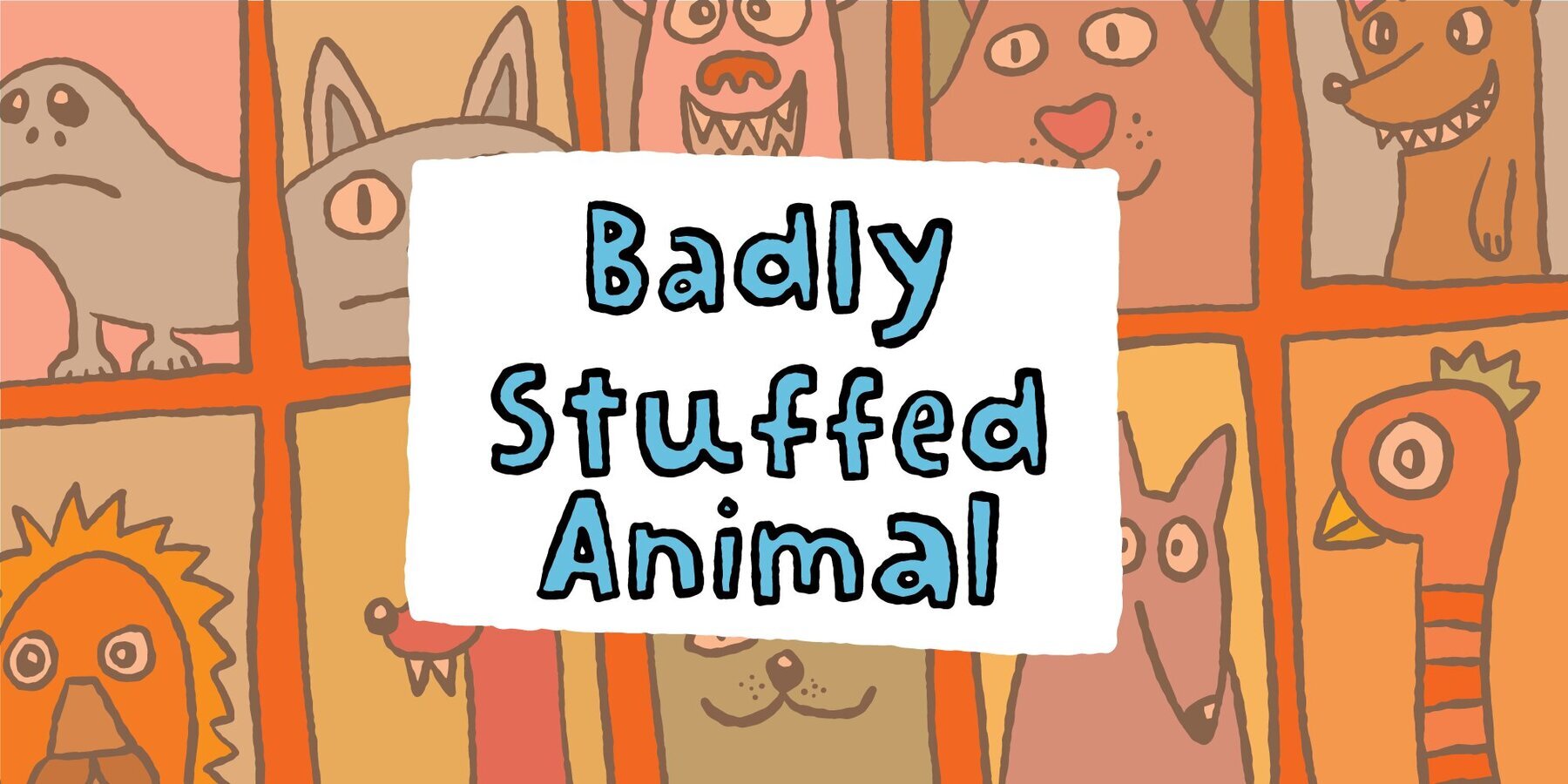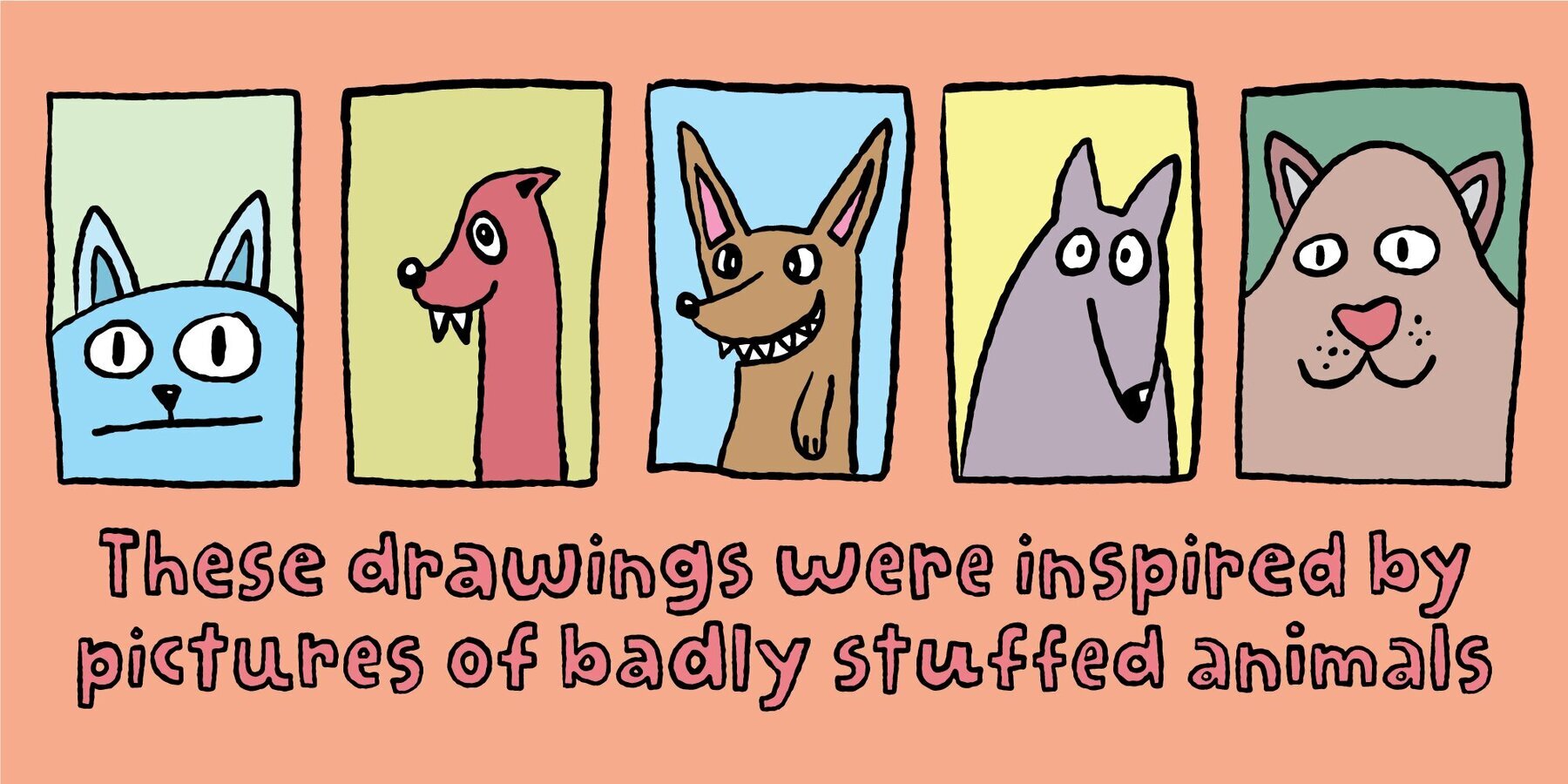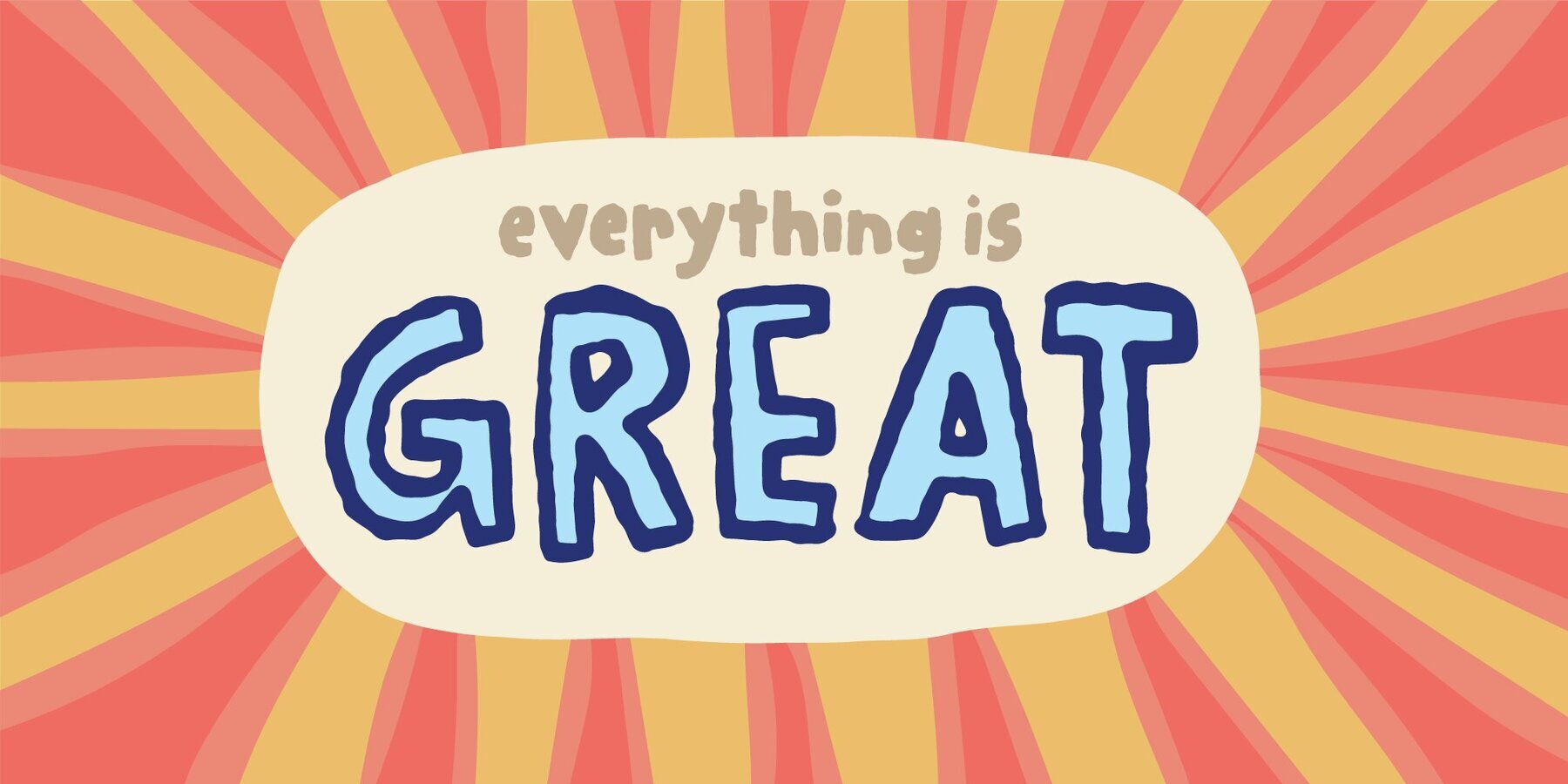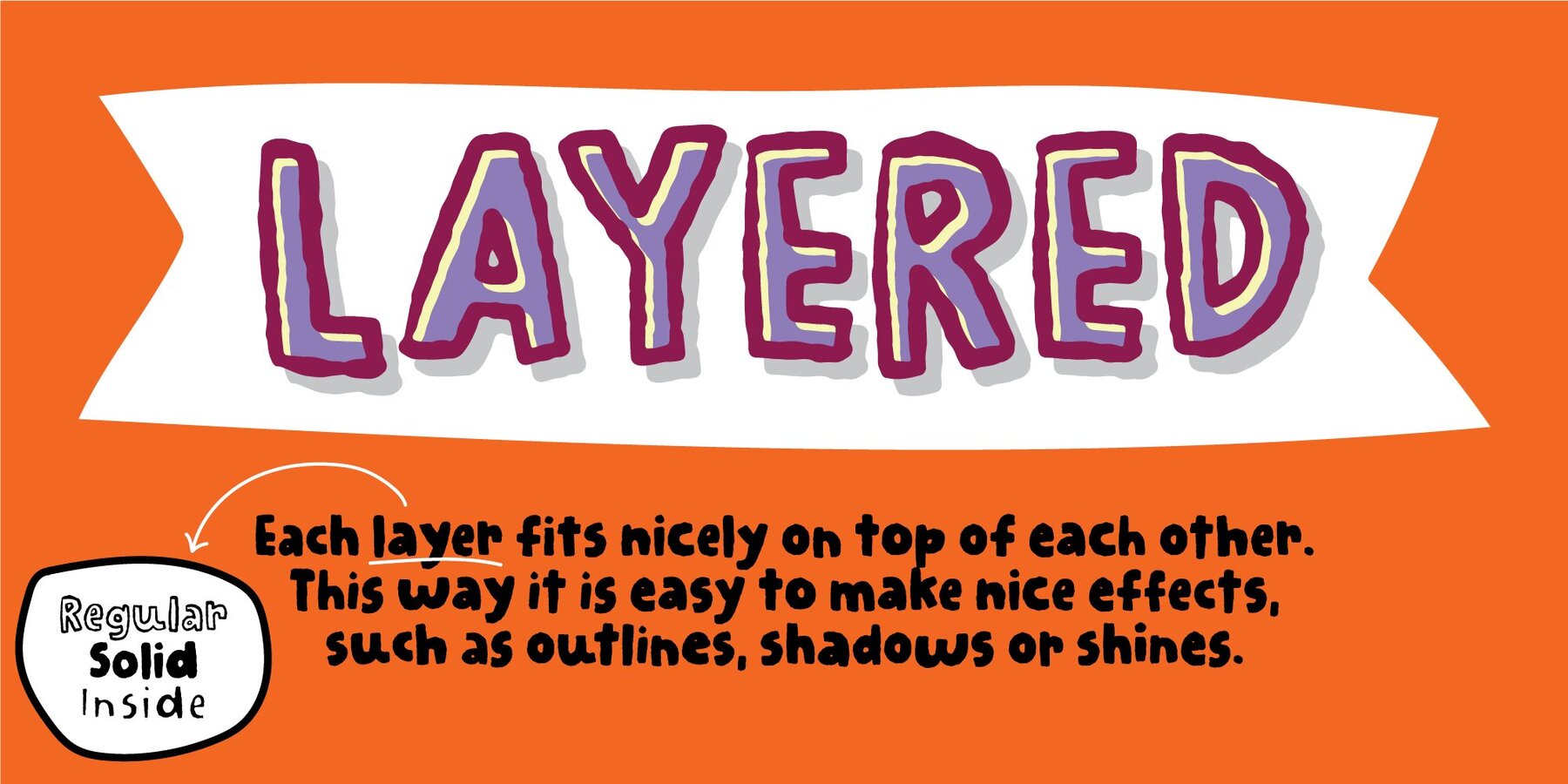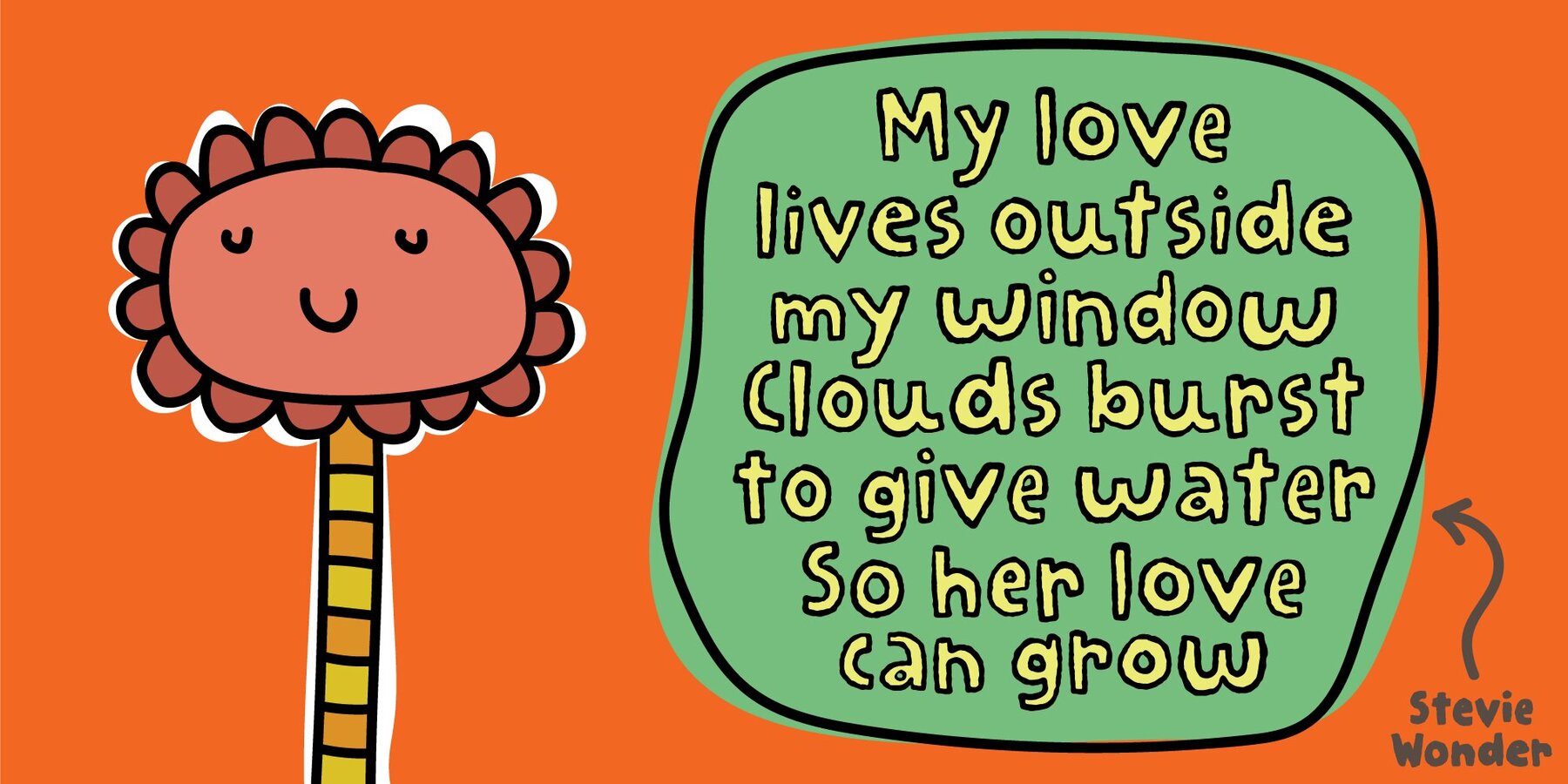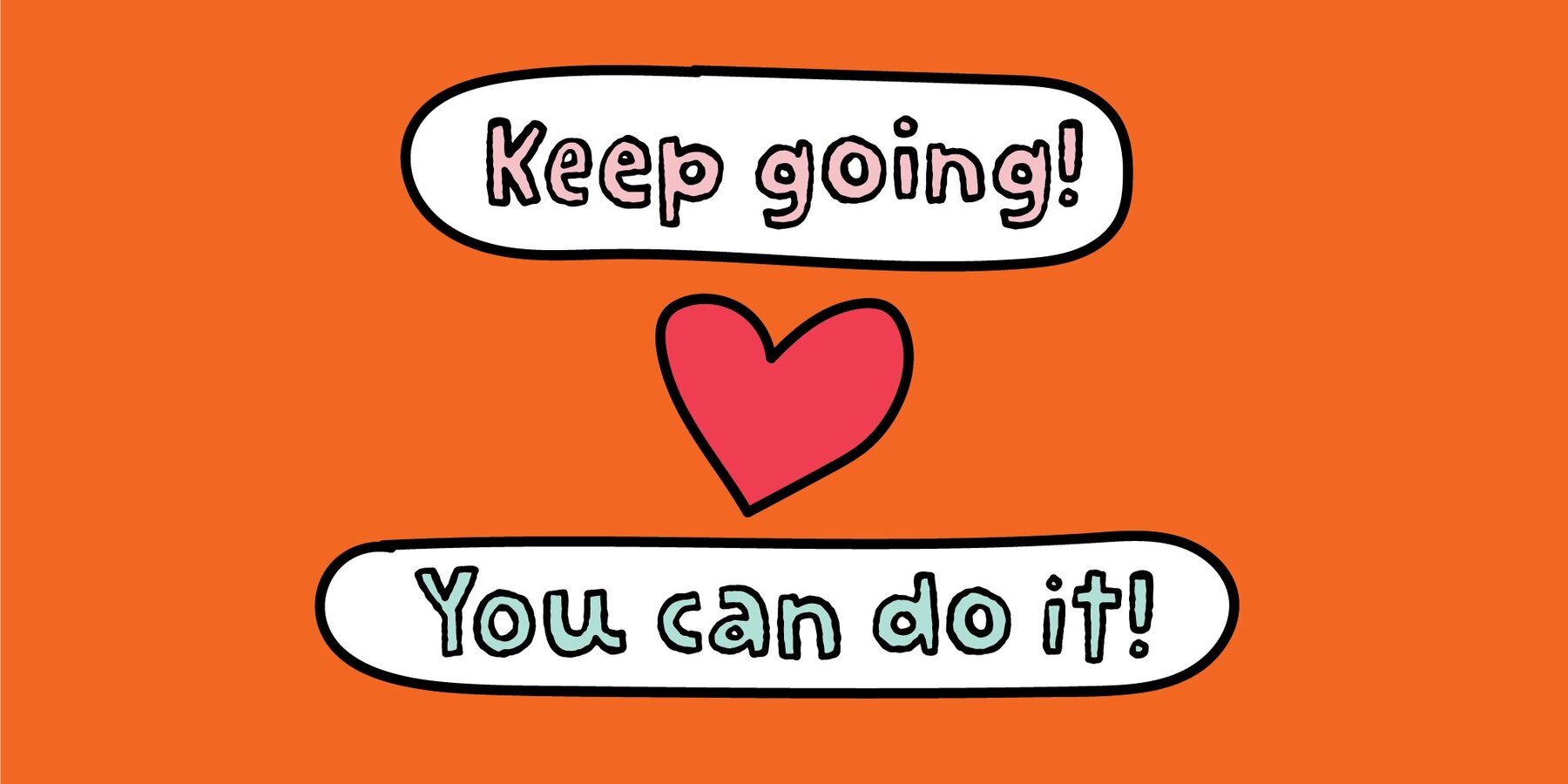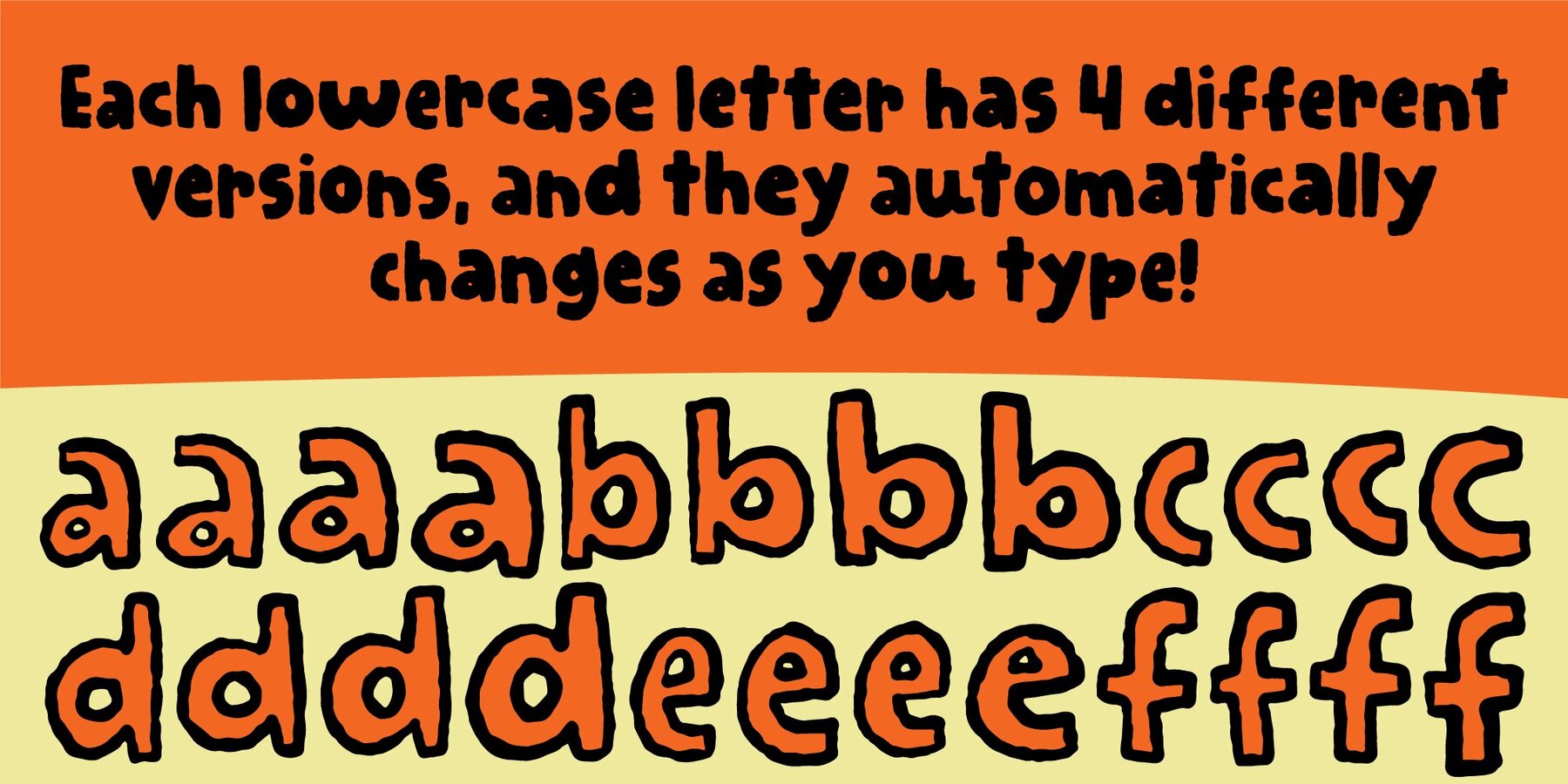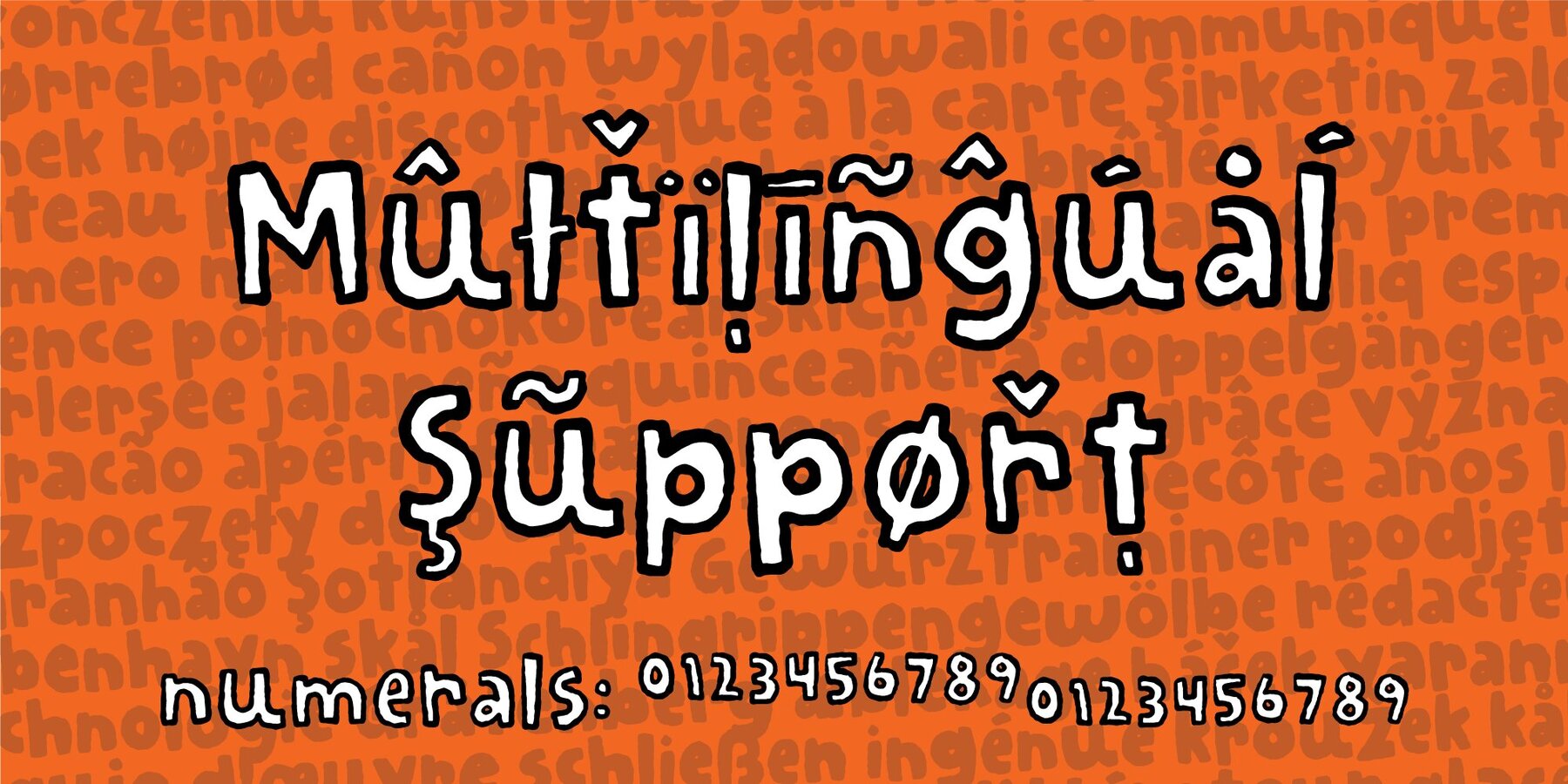
Badly Stuffed Animal Font
Badly Stuffed Animal Regular
Badly Stuffed Animal Inside
Badly Stuffed Animal Solid
I have seen my share of badly stuffed animals. Most of them via pictures, but also on vacations here and there. They all had this really bad handcraft vibe, but at the same time some really ordinary and kind of cute looks. I did my best to capture this look and feeling in my Badly Stuffed Animal font: clumsy letters made with a blobbly pen, with naive and irregular lines - and the conclusion is something super useful for a project that needs an organic handmade look!